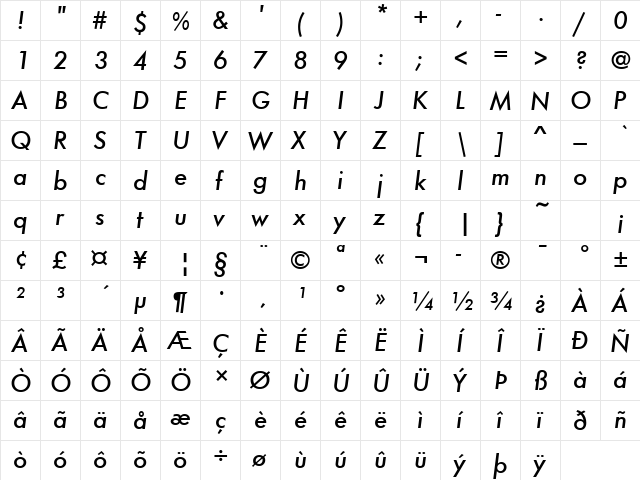
Futura ND Medium Oblique Font Preview
Futura ND Medium Oblique
Futura ND Medium Oblique Font Details
| Style | Medium Oblique |
| Foundry | Neufville Digital |
| Designer | Paul Renner (1928) |
Design Context for Futura ND Typeface
Futura ND channels digital-age aesthetics through its sharp, structured letterforms — ideal for brands that want to signal innovation. The dynamic lean of this cut emphasises speed and emphasis in any layout.